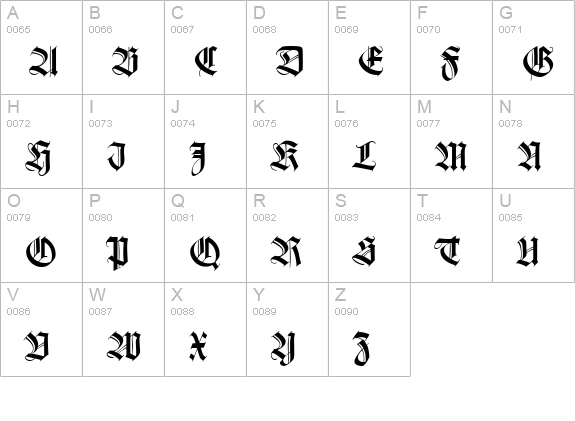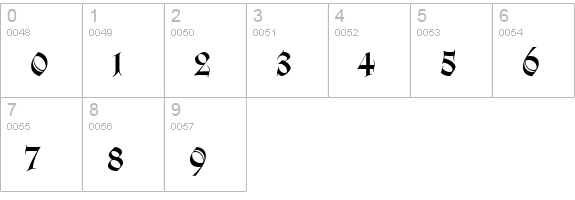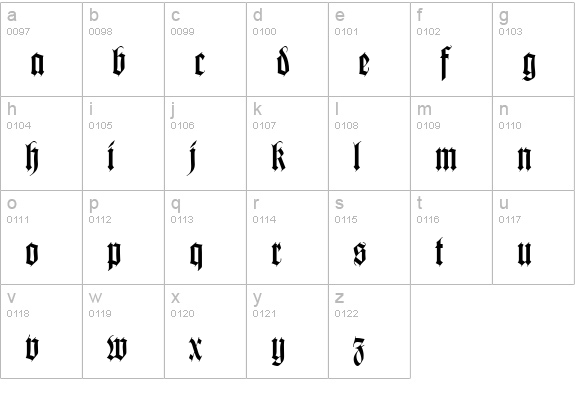
Tudor SSi Bold is a strong, high-contrast variant in the Tudor typeface family \xE2\x80\x94 well suited to headlines, attention-grabbing titles, and strong calls-to-action.
Introducing Tudor SSi Bold font - a captivating typographic masterpiece that effortlessly combines elegance, power, and timeless appeal. This bold and commanding typeface exudes confidence, making it the perfect choice for any design project that demands attention and authority. Crafted with meticulous precision, Tudor SSi Bold font boasts strong and distinct letterforms that leave a lasting impression. Its intricate details and carefully balanced curves create a harmonious visual rhythm, ensuring readability and legibility in various sizes and applications. With its rich heritage and regal charm, Tudor SSi Bold font transports your designs to a bygone era, evoking the grandeur of Tudor architecture and the opulence of royal courtiers. Whether used in headlines, logos, posters, or branding materials, this font commands attention and adds a touch of sophistication to any design. But what makes Tudor SSi Bold font even more remarkable is that it is freely available to download at FontsMarket.com. This means that you can effortlessly bring the charm and allure of Tudor SSi Bold font into your projects without any additional cost. Its availability as a free download allows you to explore its potential and unleash your creativity without any limitations. So why wait? Discover the exceptional elegance and commanding presence of Tudor SSi Bold font today. Download it for free at FontsMarket.com and elevate your designs to new heights of visual excellence.